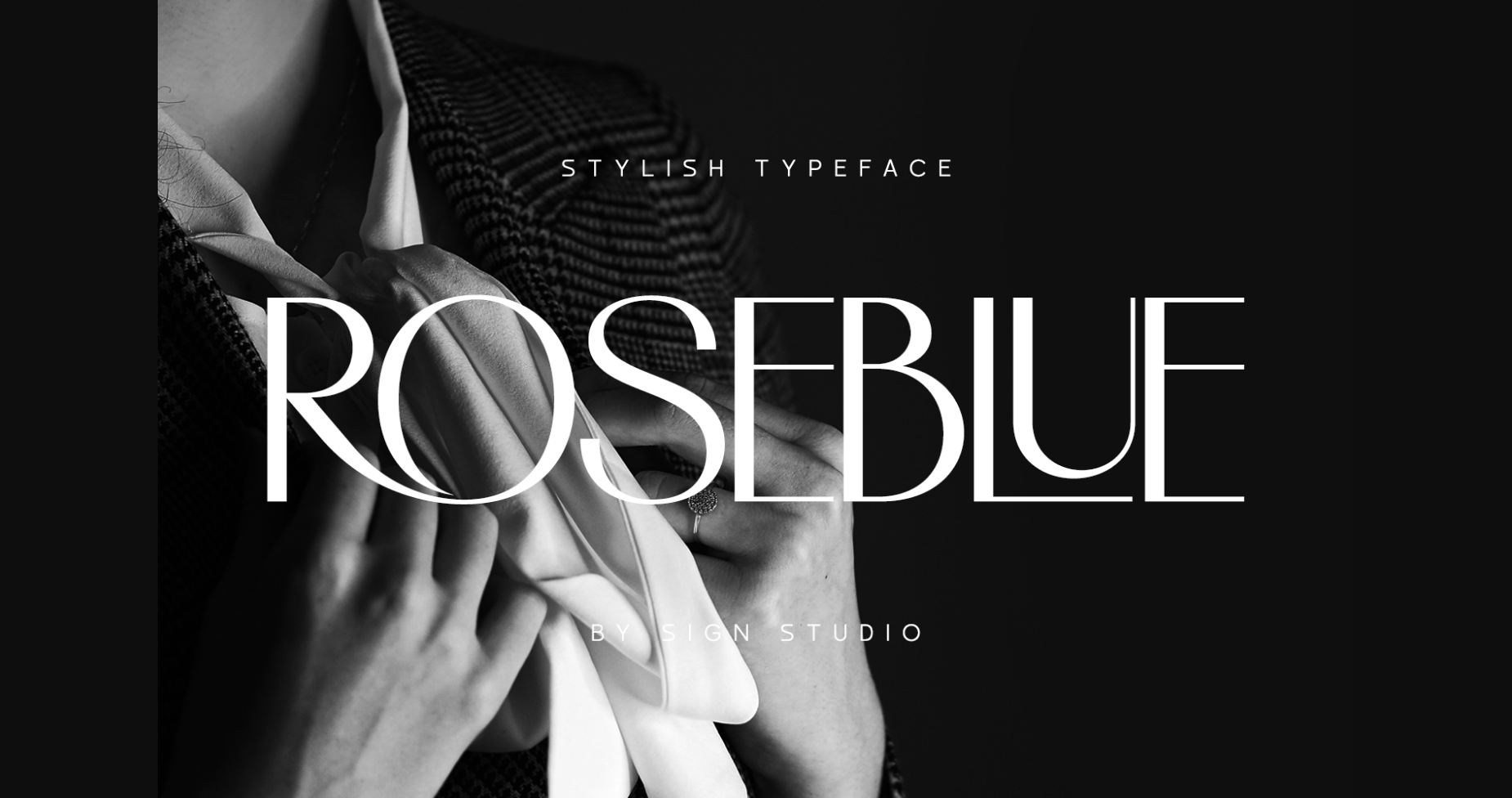
About Roseblue Font
Roseblue is a beautiful and smooth sans serif font created with a romantic and lovely look. It is perfect for greeting cards, wedding invitations, posters, logotypes, product branding, and much more.